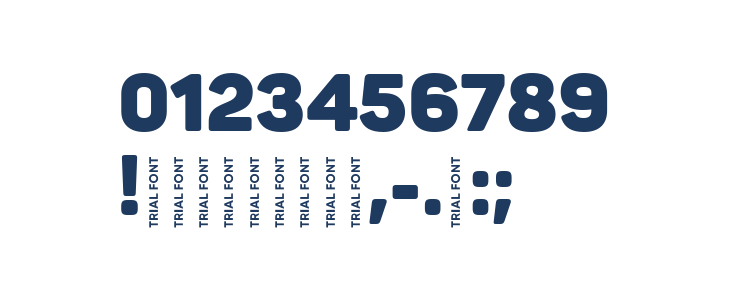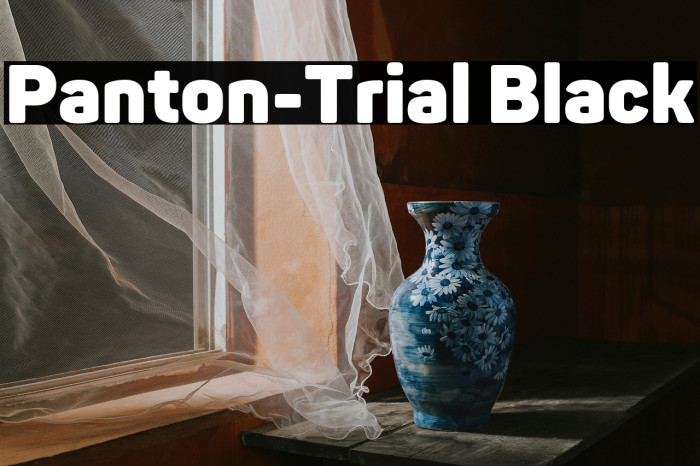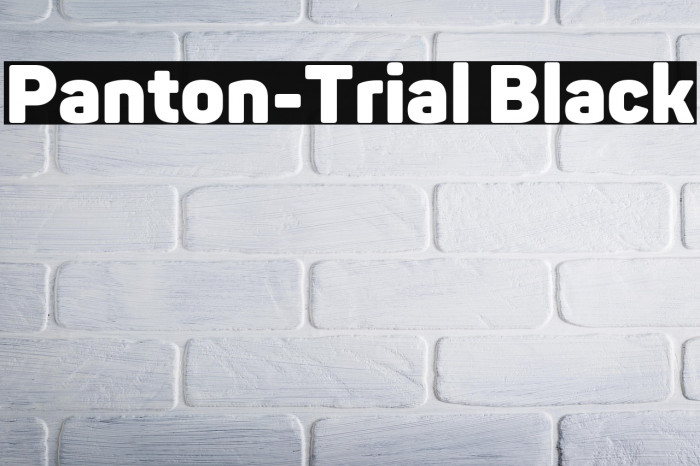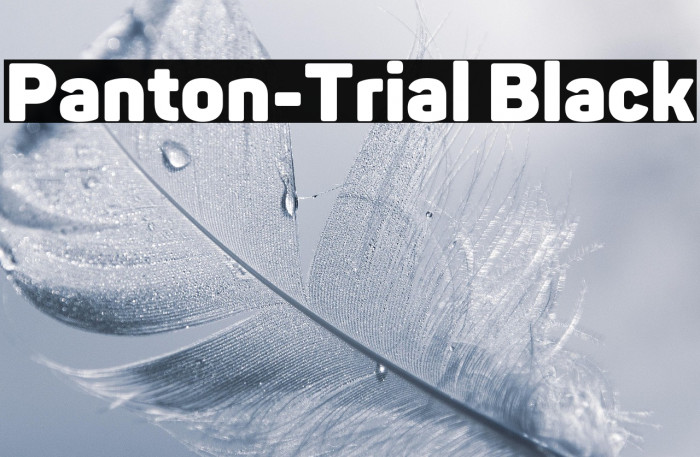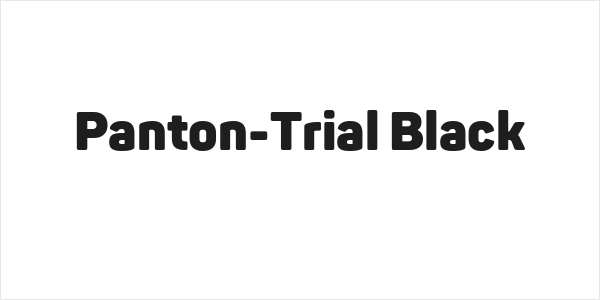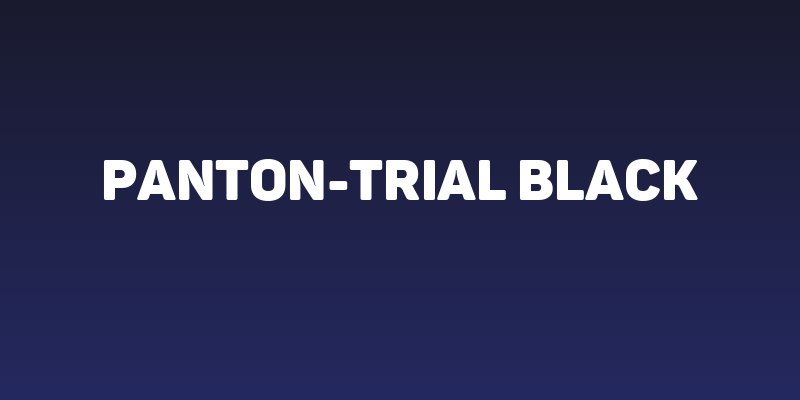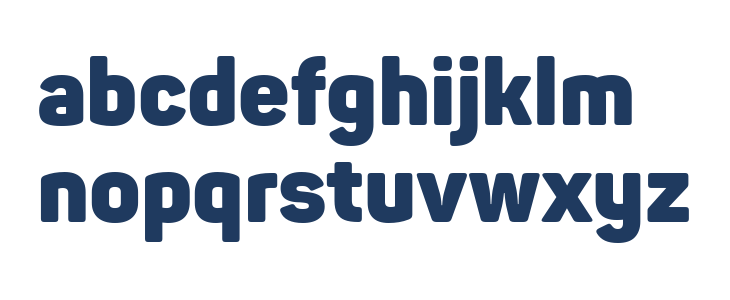
Panton-Trial Black Font
Panton-Trial Black Description
This font features a bold and robust design, characterized by thick, uniform strokes that convey strength and modernity. The characters are well-rounded with smooth curves, giving them a friendly and approachable appearance. The uppercase and lowercase letters maintain a consistent weight, ensuring a harmonious look across different text sizes. The numerals are clear and legible, making them suitable for various applications. Special characters are designed with the same boldness, ensuring they stand out effectively. Overall, this font exudes a contemporary and professional vibe, making it versatile for numerous design projects.
| Proposed Projects | Ideal for branding, headlines, posters, and digital media where a strong, modern presence is desired. |